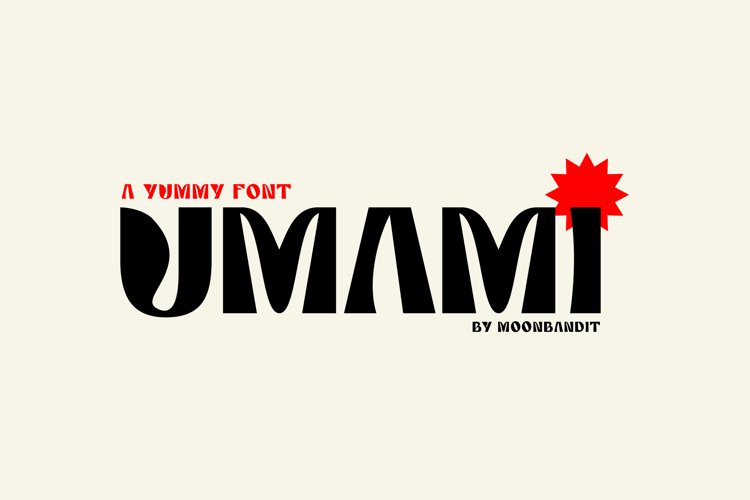
Created By MoonBandit
Umami - A Delicious typeface
MBF Umami
Introducing Umami, a playful bold font. It's quirky construction is inspired by the flavour of all things tasty and good. Perfect for headlines, title, display, logo and many more.